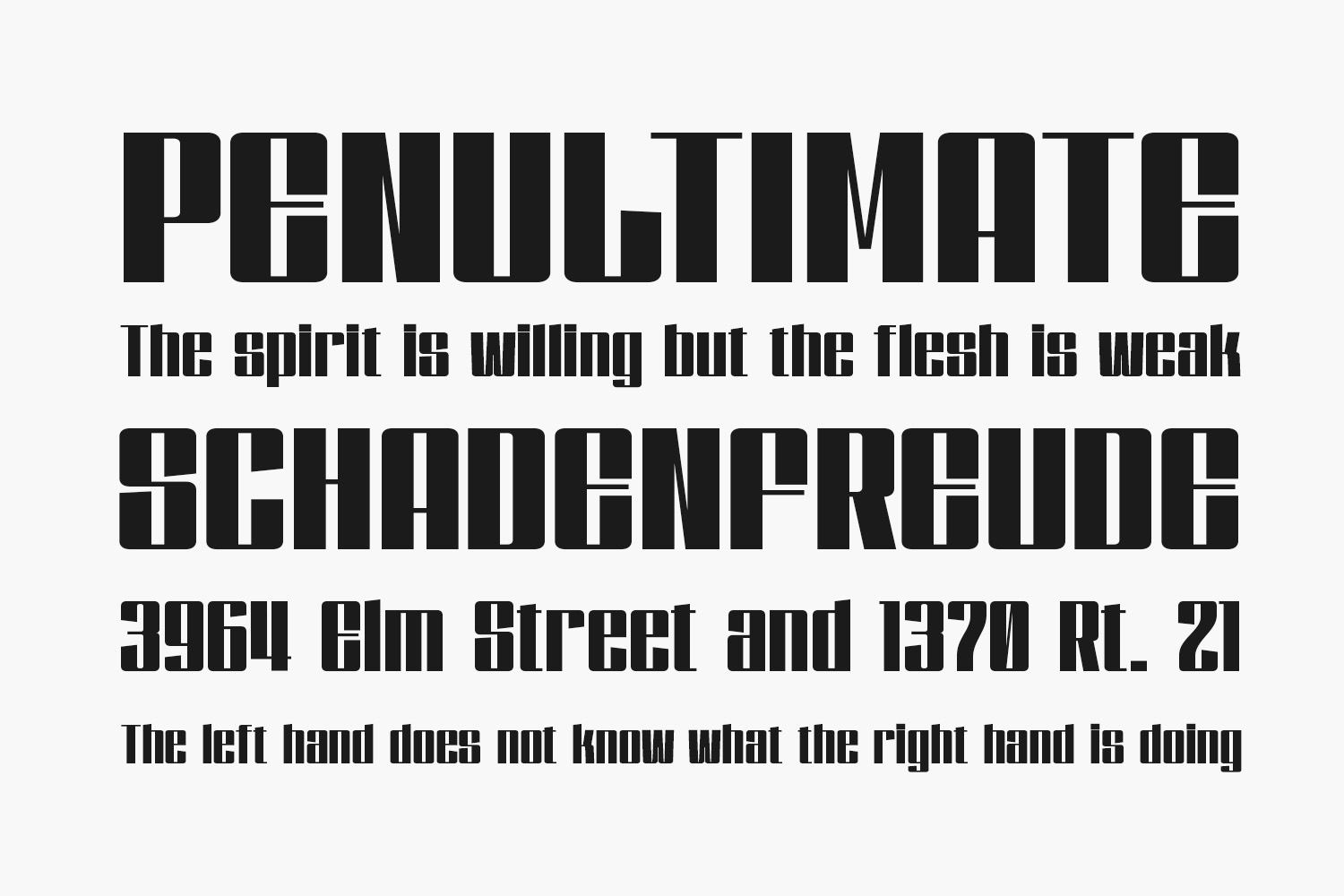
Dankfield Free Font is a bold, thick lettered, and techno looking display font. It will look great on a variety of designs that require a futuristic, imposing touch. Dankfield Free Font was designed by Letterhend Studio and is free for personal use only. Please purchase the full version for commercial use.